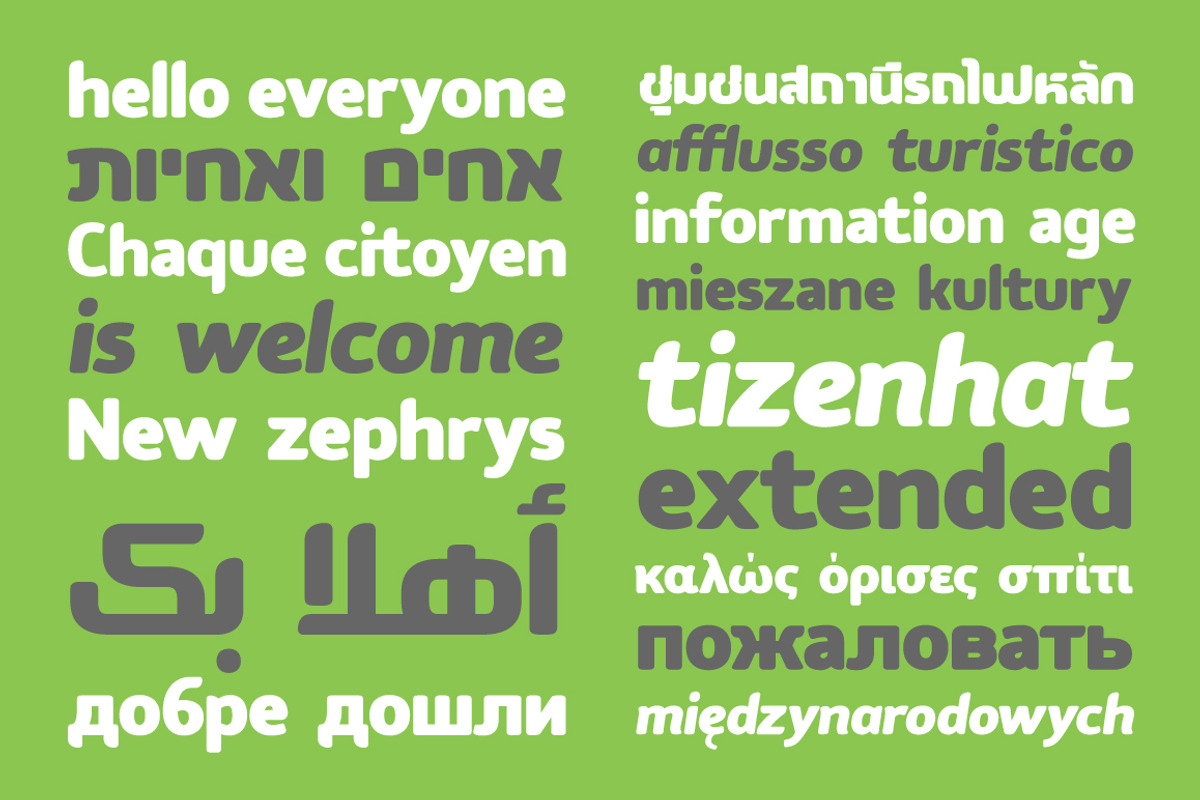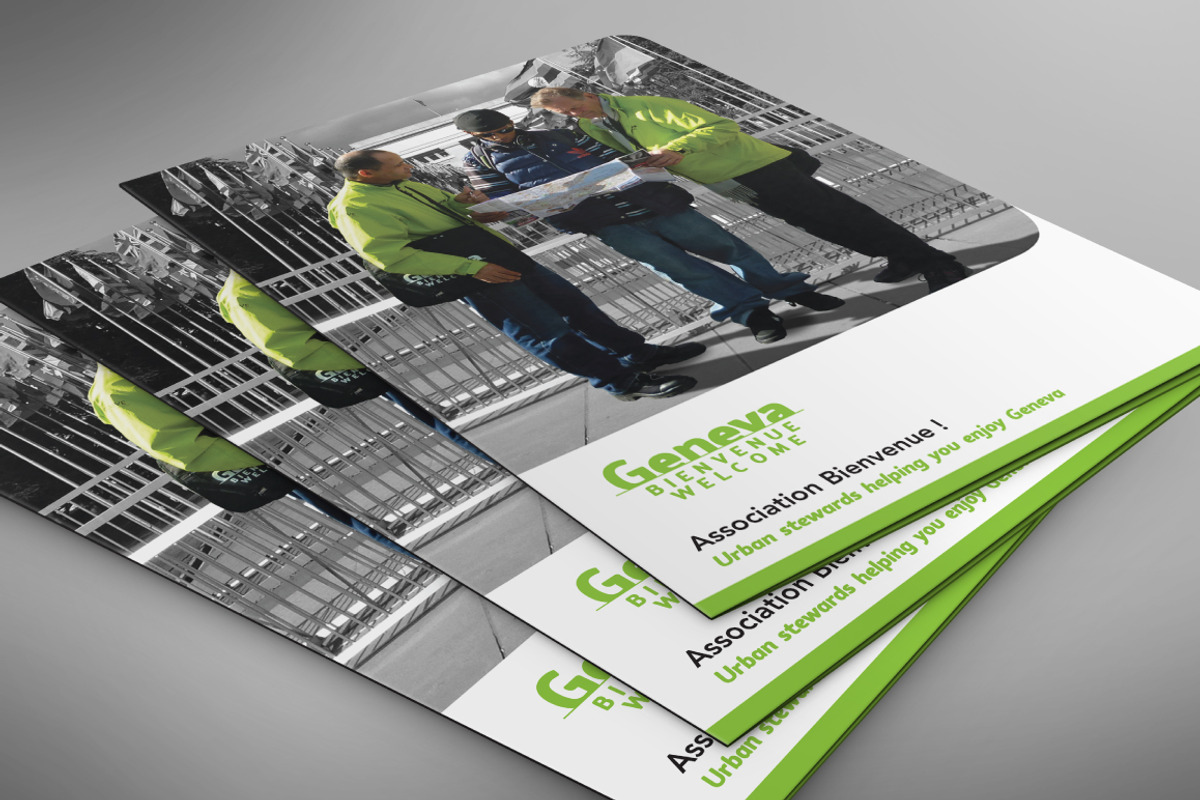
Tcho
Tcho is very versatile typeface family that combines multilingual support with a large range of Opentype features like Alternate characters, various forms of numbers or Swash forms. This typeface family is ideal for any international branding operations were you need a common visual style despite the different writing systems, this font covers all scripts from Latin, Cyrillic, Greek, Hebrew, Arabic or Thai. A complimentary italic weight is equally provided and features a more calligraphic feel than the roman weight.
Opentype features: Ligatures, Discretionary Ligatures, Alternates, Swash, Lining numerals, Hanging numerals, Scientific numerals, Fractions, Arrows, Symbols